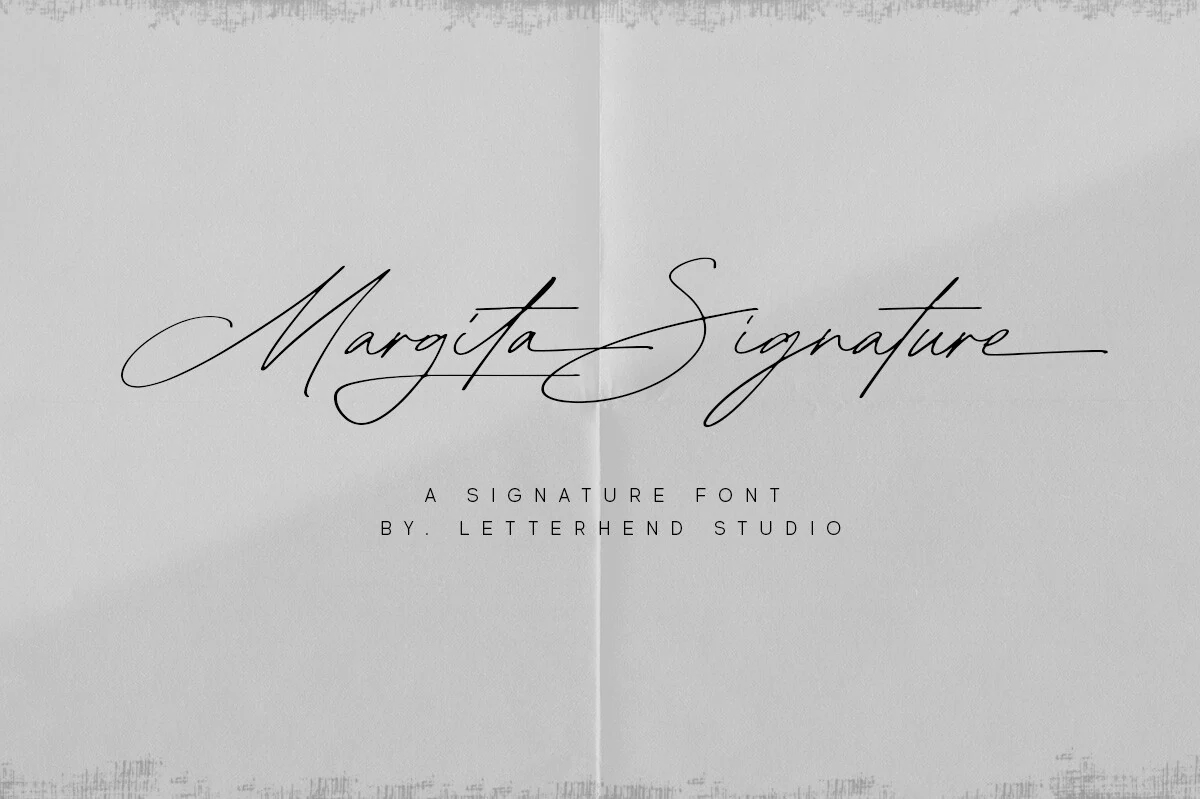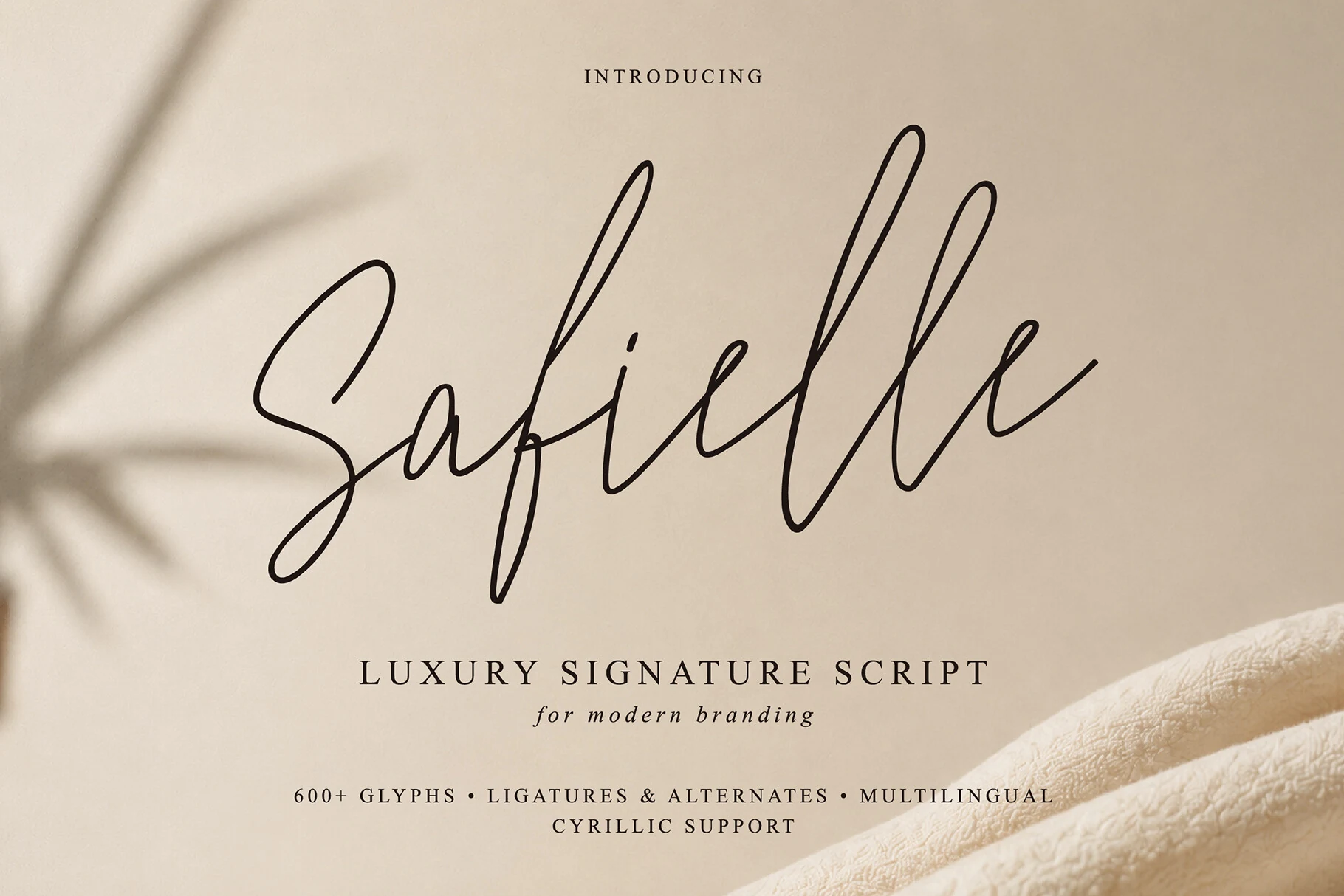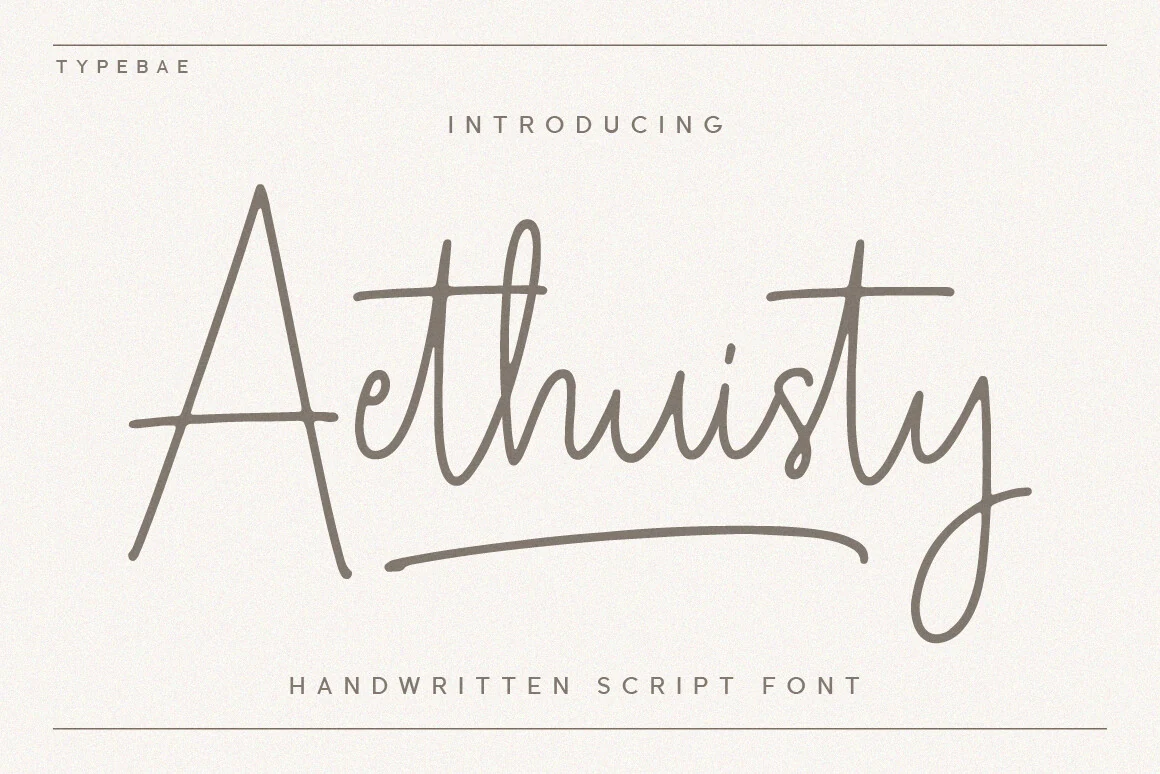
27 Stunning Signature Script Fonts for Elegant Brands
Signature script fonts are useful when a logo, invitation, or personal brand needs the look of real handwriting without losing polish. This collection is for designers choosing elegant, modern, bold, or logo-ready signature styles for branding, packaging, wedding stationery, business cards, and social graphics.
Light & Elegant Signature Script Fonts
These thin, airy signature scripts use delicate monoline strokes, tall loops, and soft swashes for beauty branding, invitations, and refined personal logos.
Mansions Font
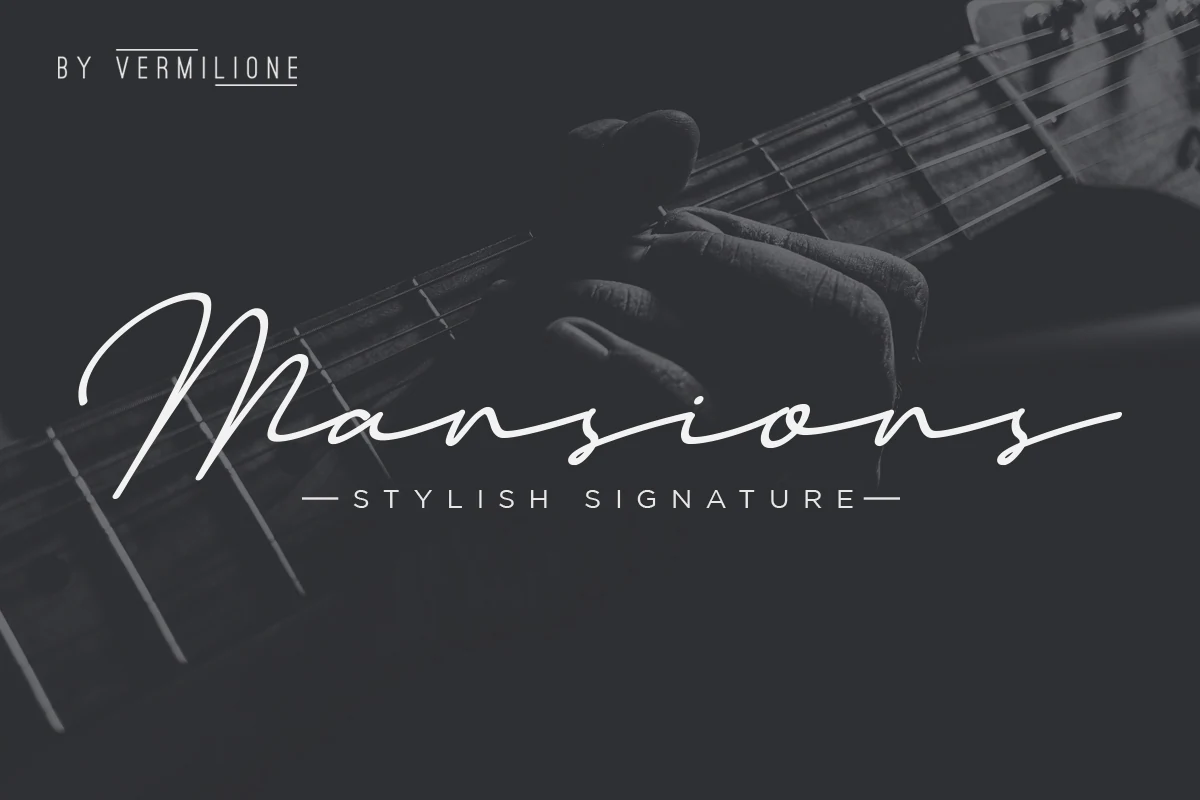
Best For: personal branding, logos, wedding designs, elegant designs
Mansions Font has a thin monoline signature style with oversized entry strokes, long exit swashes, and loose handmade connections. The lettering feels quick and personal rather than formal, so Signature Script Fonts like this work best when the wordmark can stay airy and uncluttered.
Use it for names, photographer marks, personal branding, and wedding details where a real-signature rhythm matters. Keep contrast high and avoid tight tracking; the extended strokes need horizontal space, especially around capital letters and final letters.
Mealtone Font
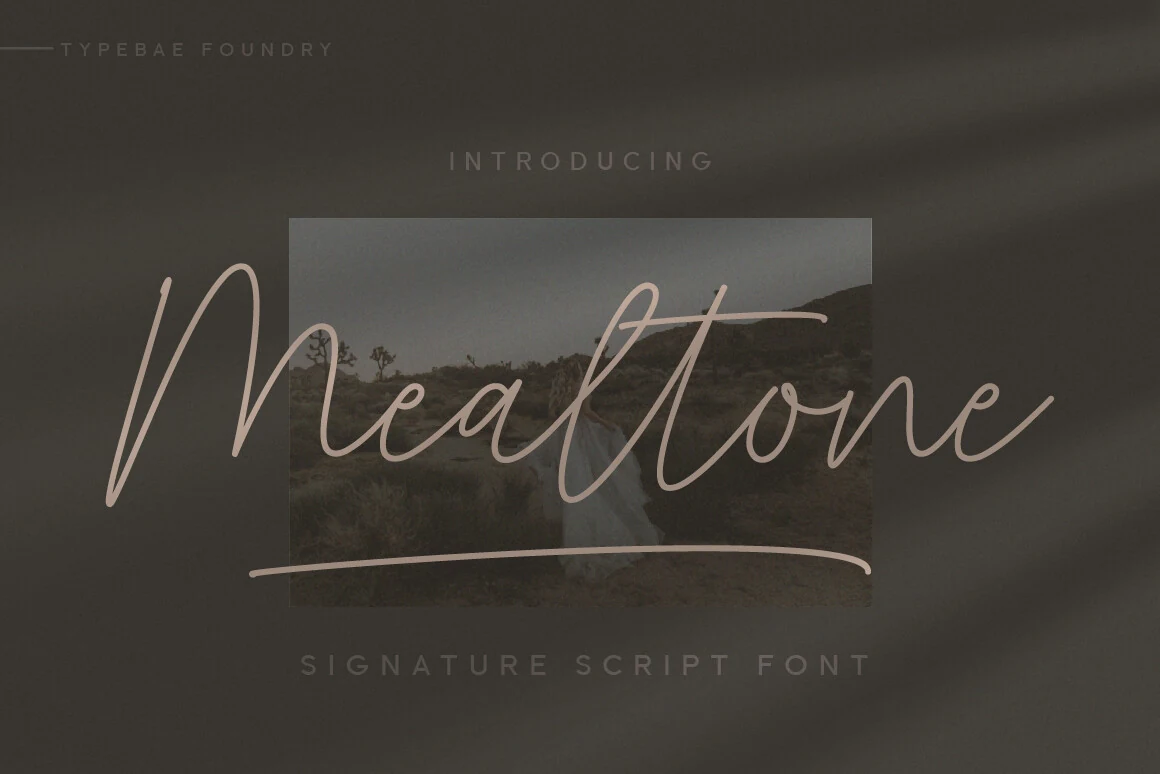
Best For: personal branding, logos, wedding designs, romantic designs
Mealtone Font has a light, elongated signature look with tall entry strokes, airy spacing, and a smooth underline swash that gives the lettering a calm, refined rhythm. For Signature Script Fonts, it leans softer and more understated, which helps it feel personal without losing elegance.
It suits names, logos, and wedding pieces where the script can stay large and breathe across the layout. Pair it with restrained small caps or a clean serif for contrast, and keep body copy separate—the delicate monoline strokes read best in short words and headline-sized settings.
Magenta Duo Font
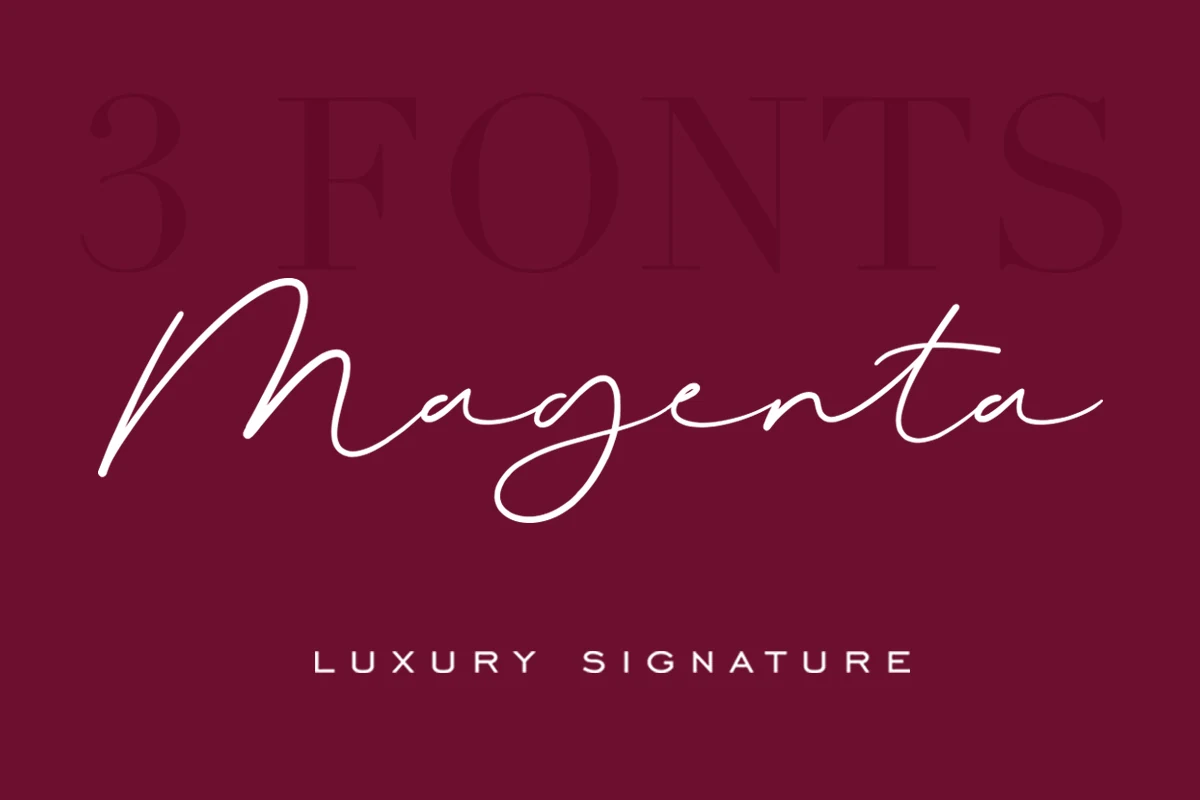
Best For: logos, personal branding, beauty branding, invitations
Magenta Duo Font has a slim monoline signature style with a tall, sweeping M, loose midline joins, and a rounded loop in the descender that gives the wordmark a fluid personal rhythm. Its strokes stay light rather than brushy, so the script reads best where contrast is strong and the name or phrase can stretch horizontally.
The included Serenity companion font supports a sharper title hierarchy by giving the handwritten script a more structured counterpoint. For Signature Script Fonts aimed at boutique logos, beauty marks, or invitation names, keep tracking generous around the supporting text and let the signature line carry the visual emphasis.
Obsidian Font
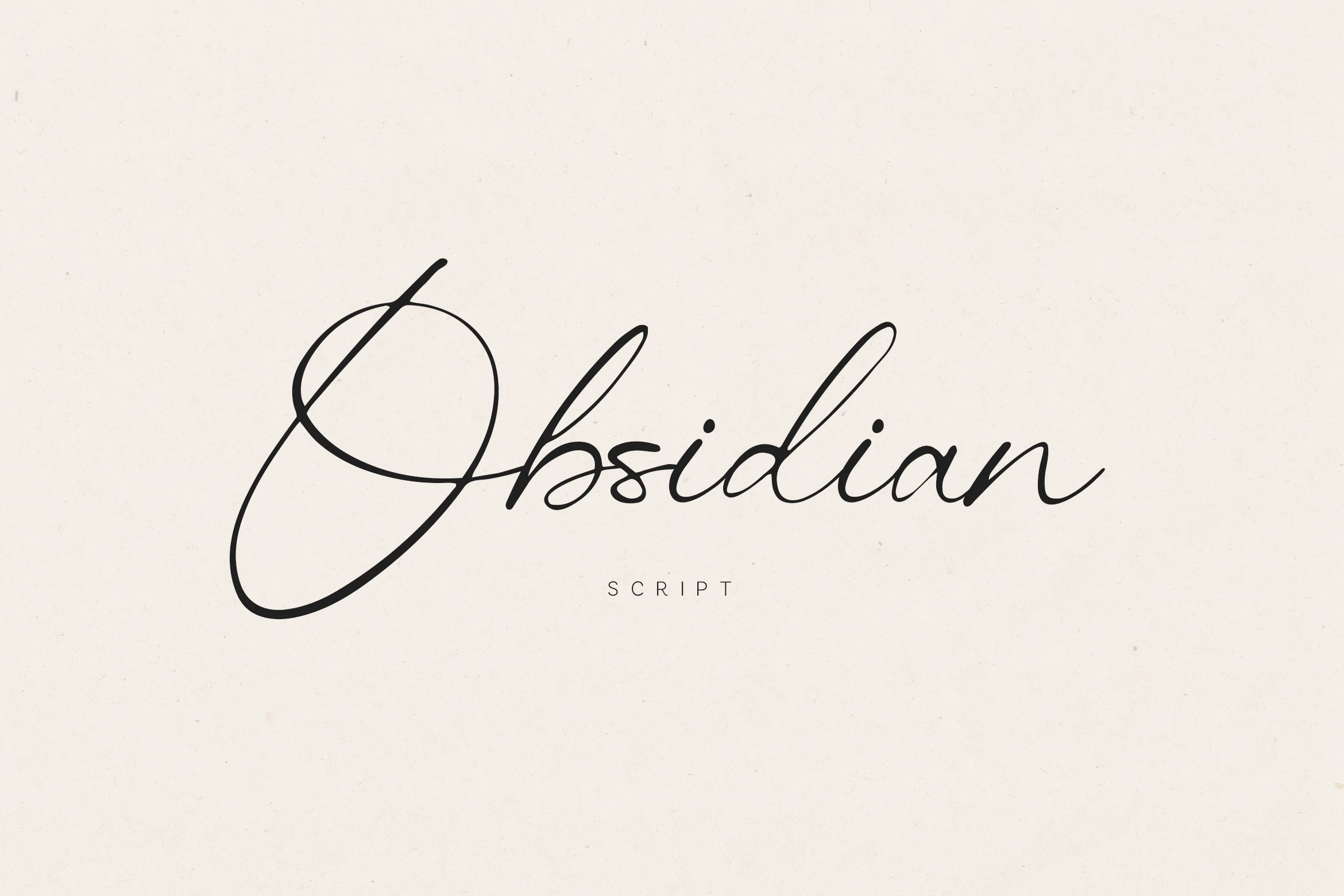
Best For: logos, personal branding, beauty branding, invitations
Obsidian Font leans on a fine monoline stroke and a dramatic opening capital, with the oversized looping O creating instant presence before the rest of the letters settle into a light, fluid rhythm. Tall ascenders and slim connections keep it polished, but the line still feels natural rather than overly formal.
Within Signature Script Fonts, that balance is especially useful for branding where the first letter needs to carry the composition. Pair it with spaced small caps or a restrained sans for supporting text, and keep the wording short so the delicate stroke weight stays crisp and readable.
Brittany Signature Script Font
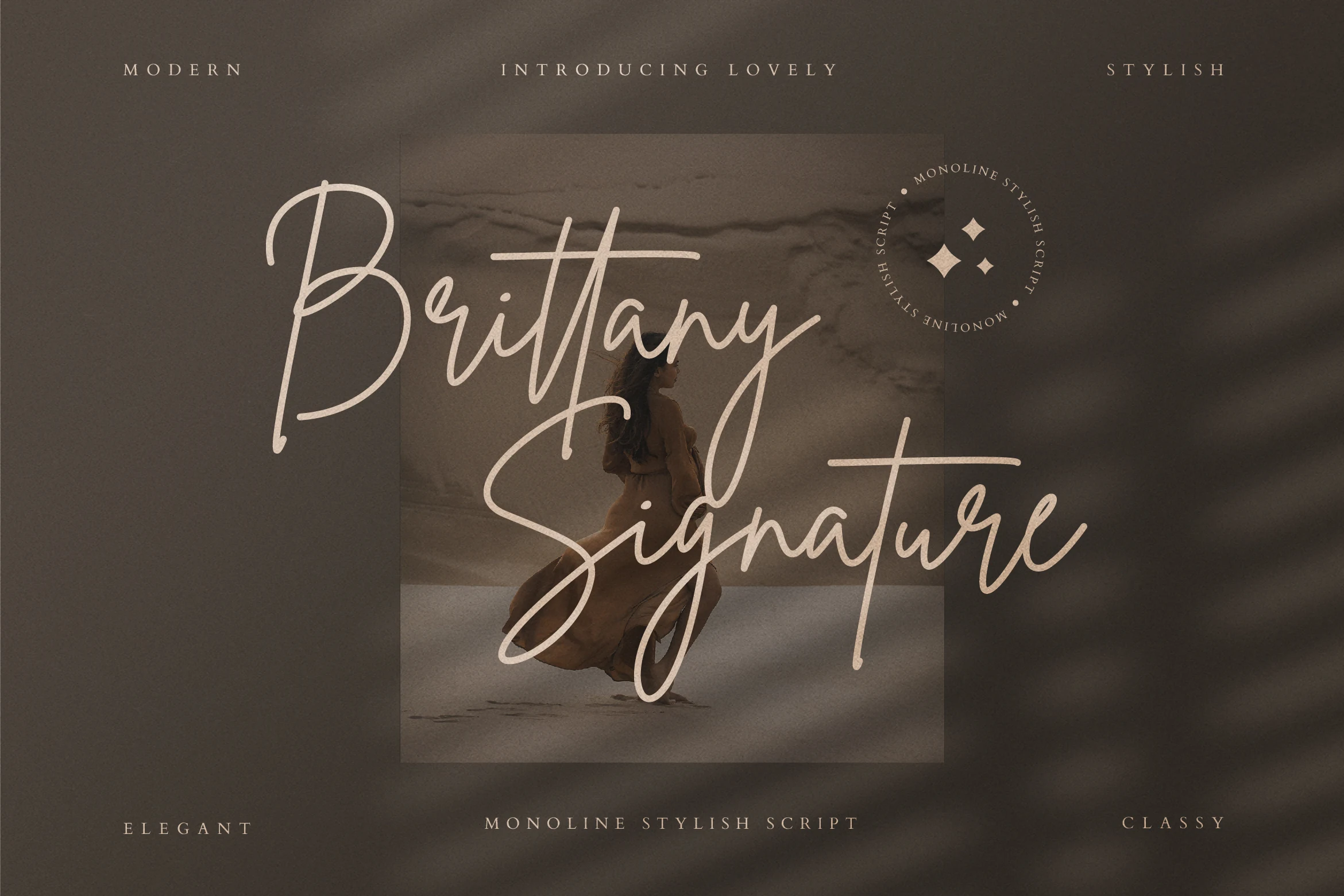
Best For: fashion branding, invitations, personal branding, high-end designs
Brittany Signature Script Font uses a slim monoline stroke, an oversized looping B, and long descending curves that give each word a graceful vertical sweep. The letterforms feel airy rather than dense, with extended crossbars and soft joins that create a polished handwritten rhythm.
That balance makes it a strong option in Signature Script Fonts for fashion-led branding and invitation work where elegance still needs to read clearly. Keep the layout spacious and let the capitals do the work; the tall ascenders and deep lower loops shine best in short titles, logos, or names with room around them.
Achilleo Font
Best For: logos, branding, invitations, business cards
Achilleo Font has a sleek monoline build with a long crossing A, tall looped ascenders, and airy spacing that keeps the script poised instead of crowded. The repeated narrow loops in the h, l, and e give it a tidy rhythm, while the ending stroke extends just enough to feel like a finished signature.
For Signature Script Fonts, Achilleo works especially well when you want a wordmark to feel polished without looking ornate. Its smooth ligatures help longer names connect cleanly, but it looks strongest in short brand names, invitations, or headings paired with well-spaced small caps for the supporting line.
Phaley Font
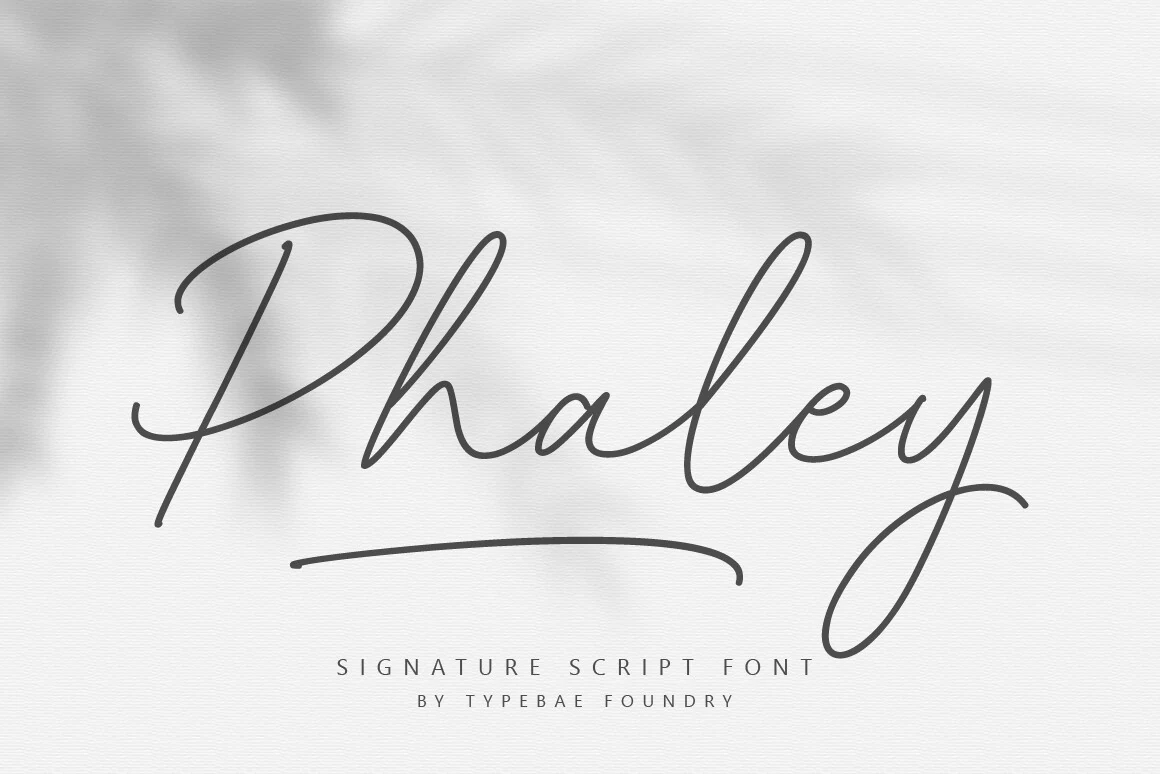
Best For: logos, personal branding, invitations, beauty branding
Phaley Font has a light monoline signature style with a broad looping P, relaxed open spacing, and a long underline that steadies the composition beneath the word. The narrow joins and tall final y keep the script airy, so it feels polished without becoming stiff.
Use it when Signature Script Fonts need a confident logo treatment rather than delicate handwriting. The long underline and wide capital need extra horizontal room, while small supporting text should stay separated below or above the script so the dense middle joins do not compete with the title.
Conclusion
Choose light monoline signatures for refined beauty or wedding layouts, bold brush scripts for stronger logo impact, smooth polished styles for flexible branding, and flourished lockups when the first capital or underline needs to carry the design.